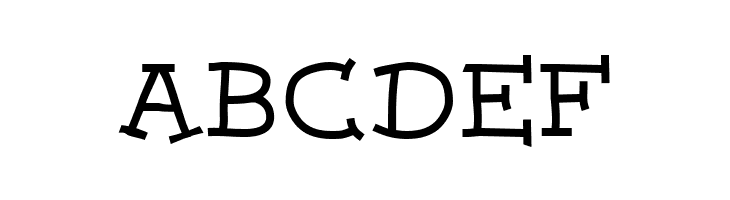
Bogota Bold Personal Use Font
- Font: Bogota Bold Personal Use
( Fonts by RudynFluffy )
A playful, whimsical font with bold, hand-drawn characters and exaggerated serifs.